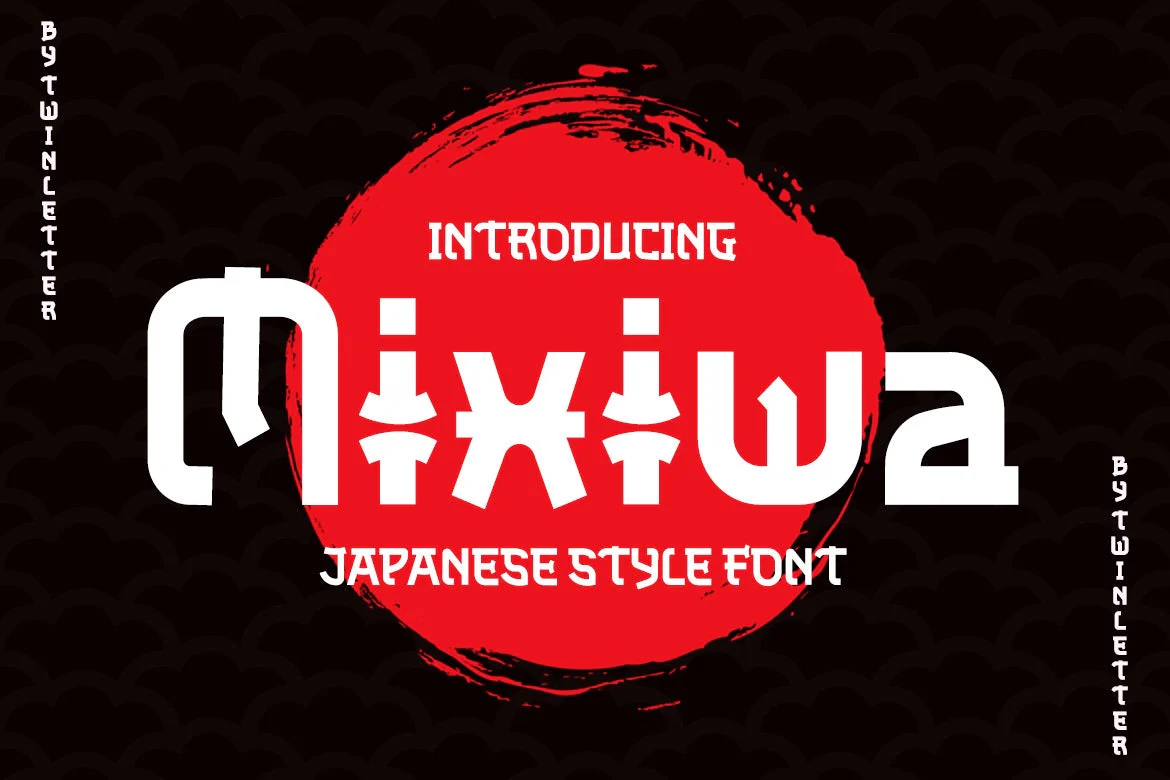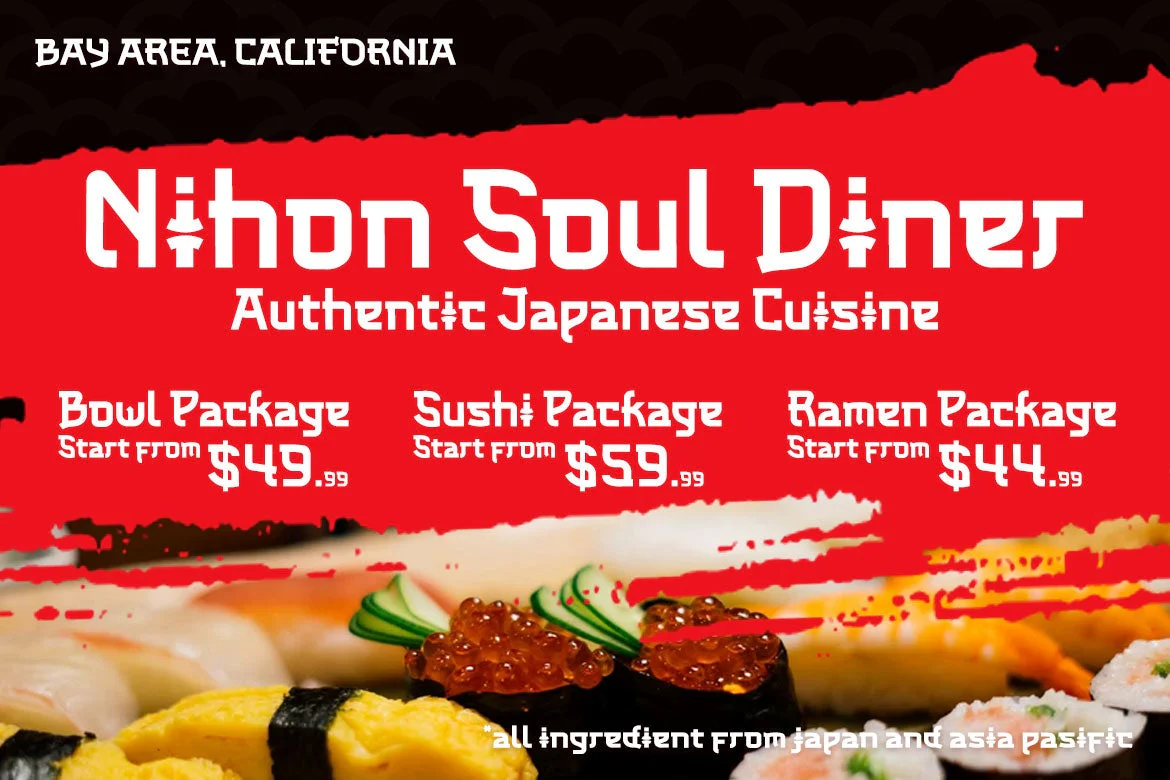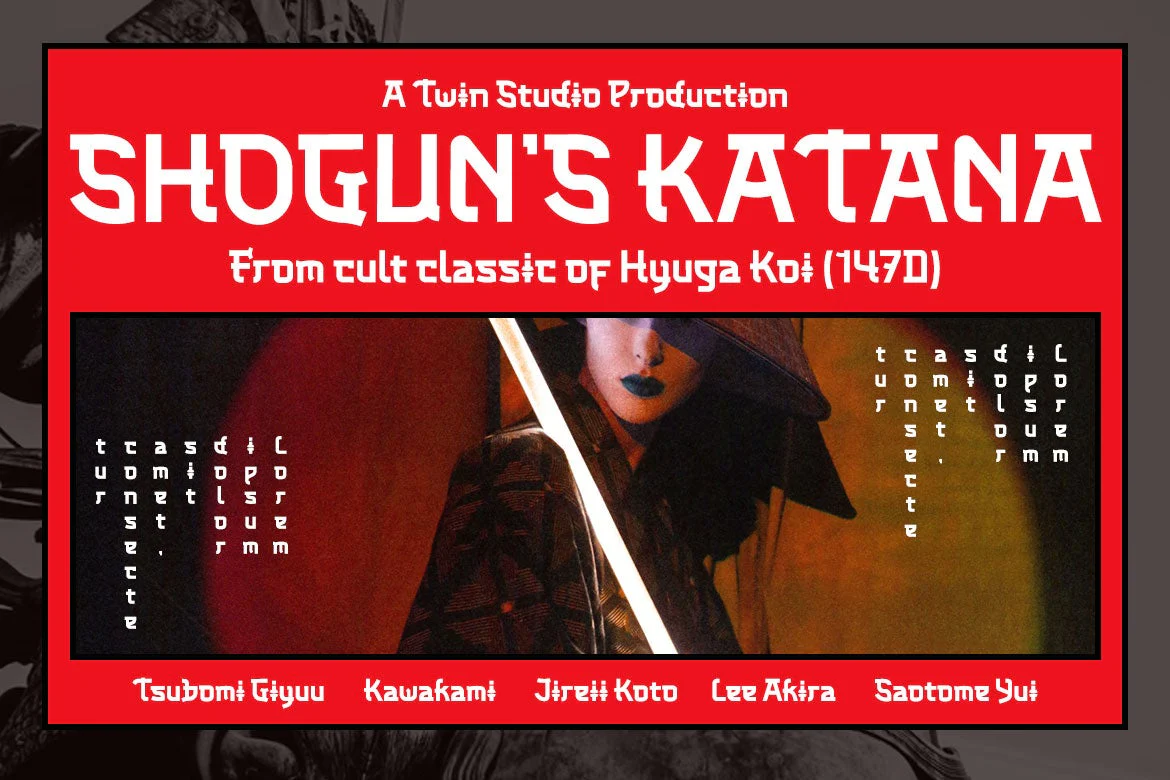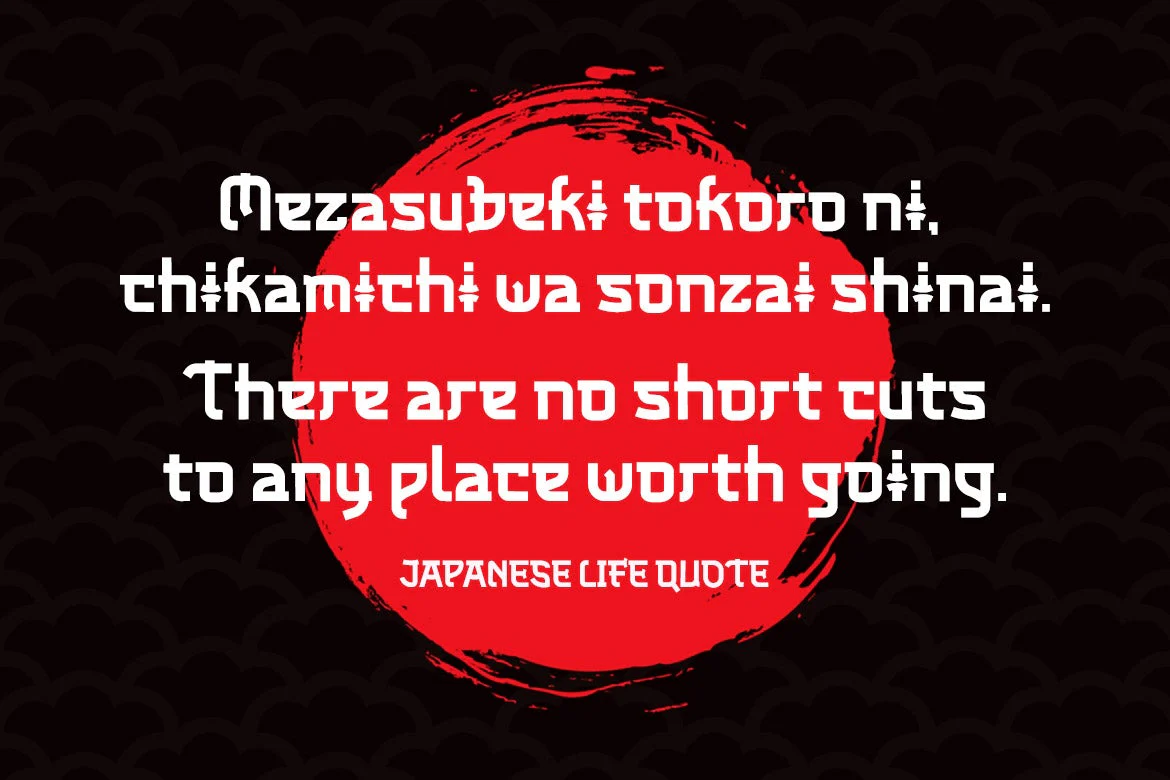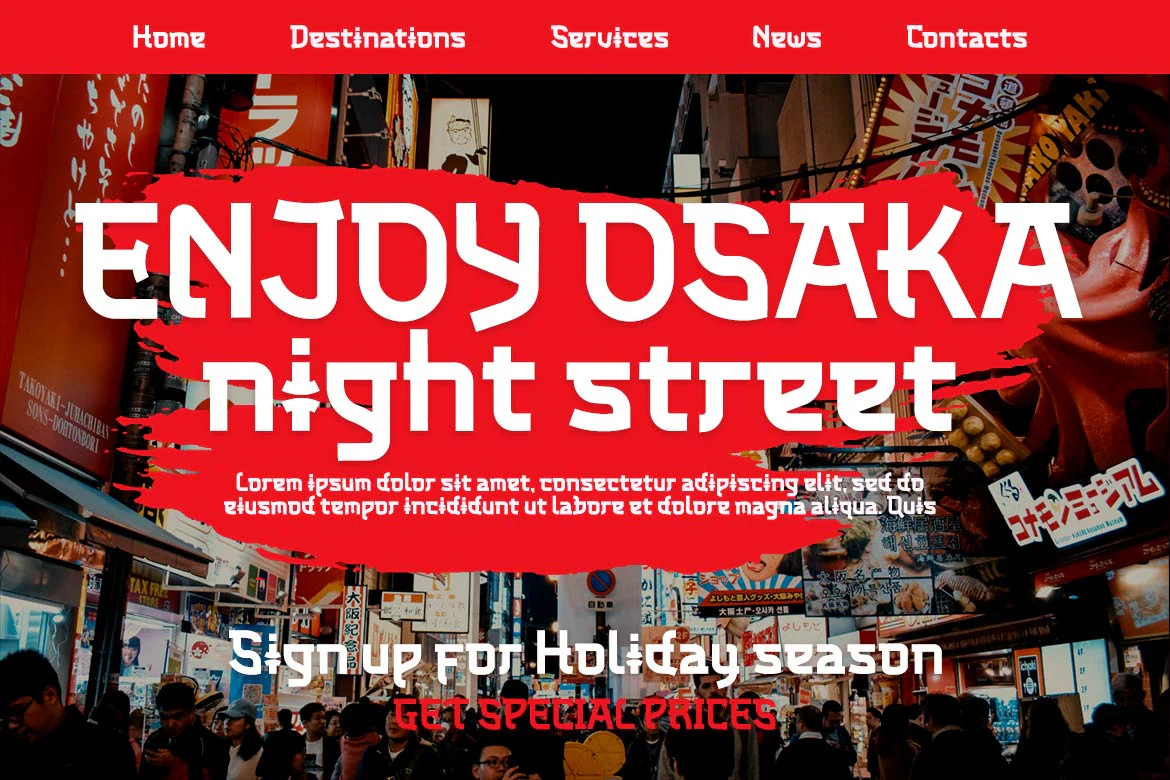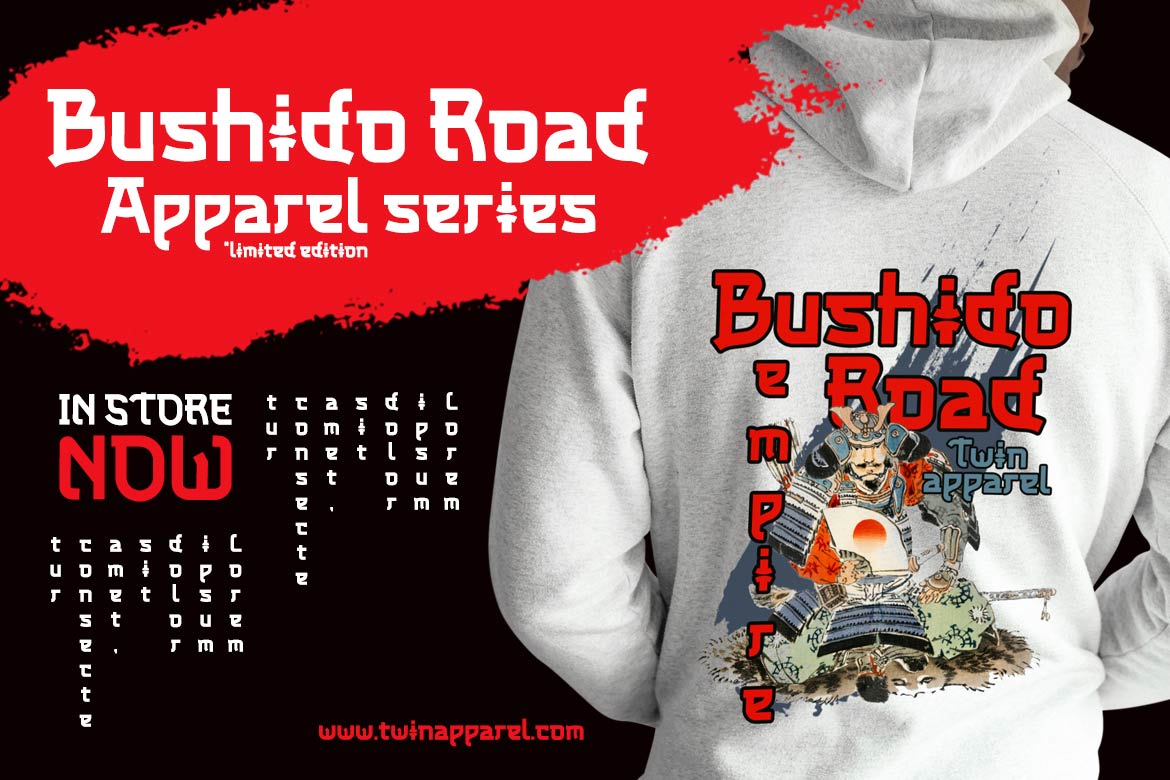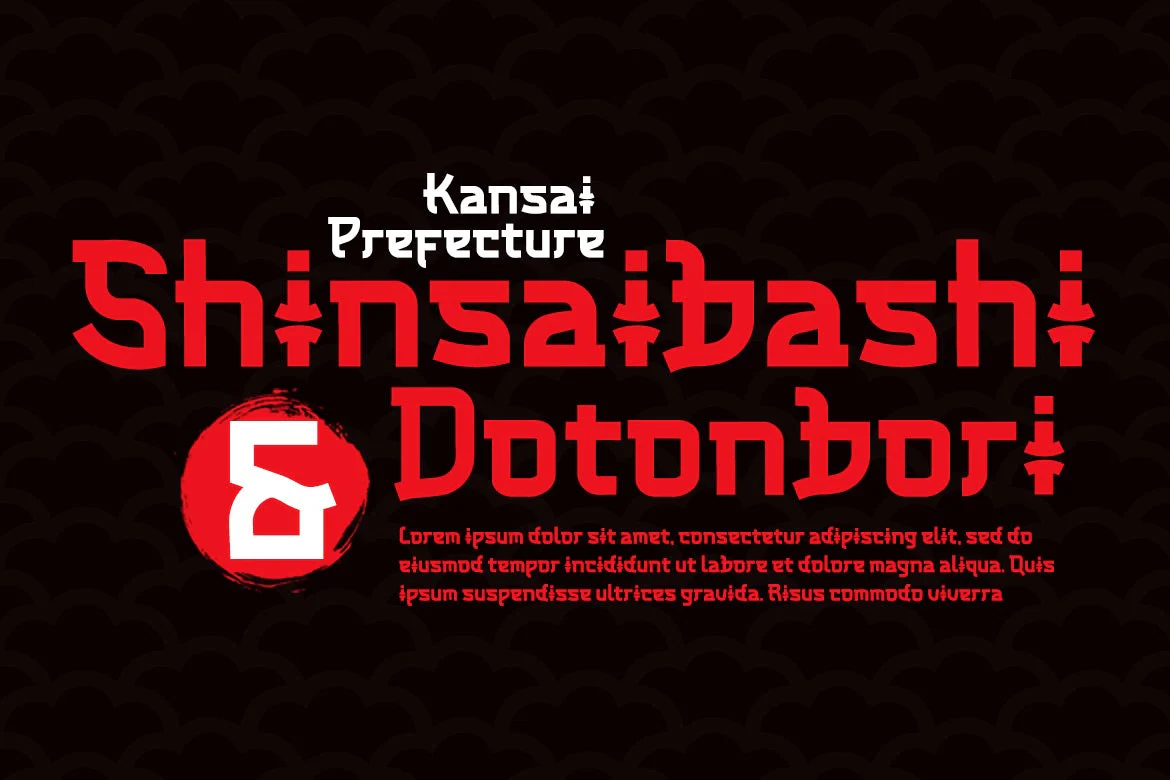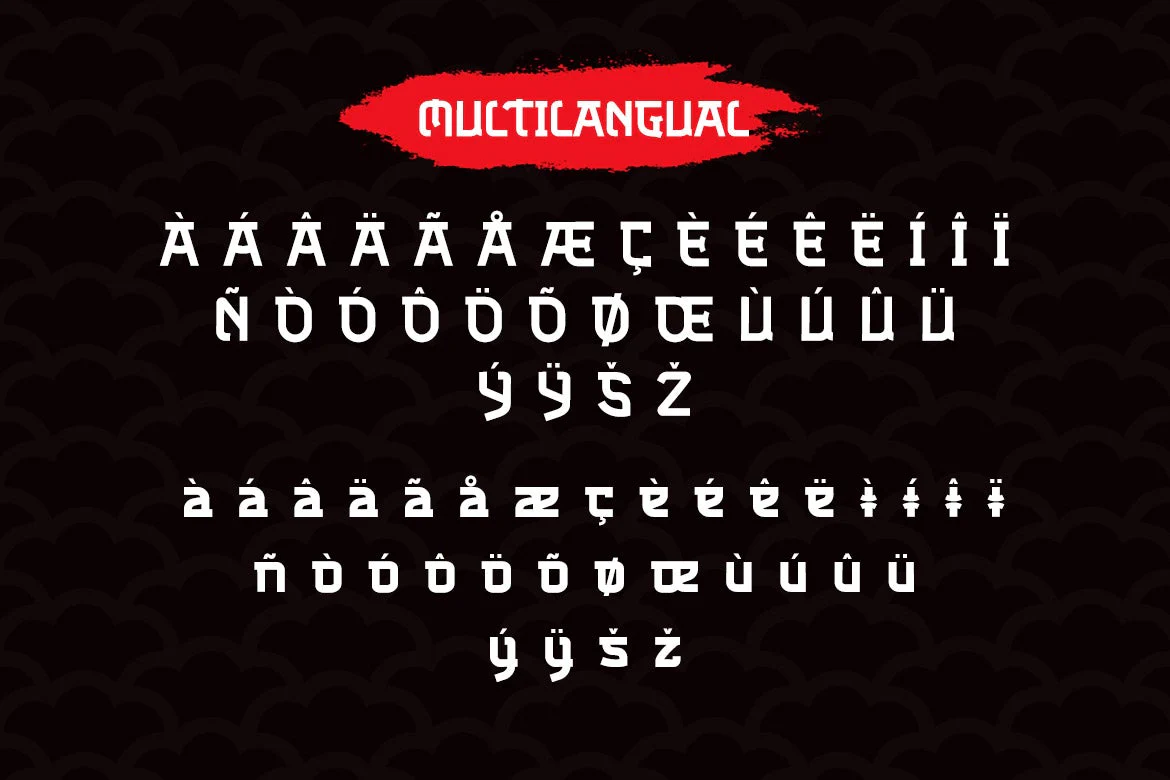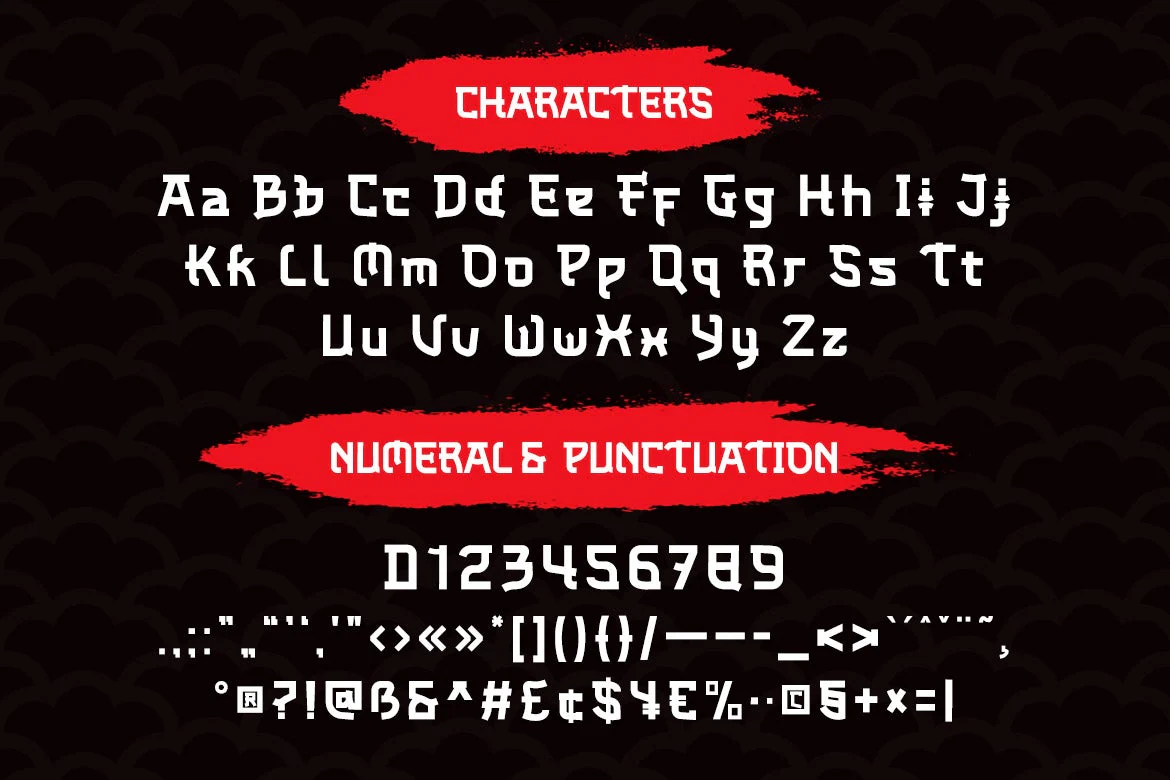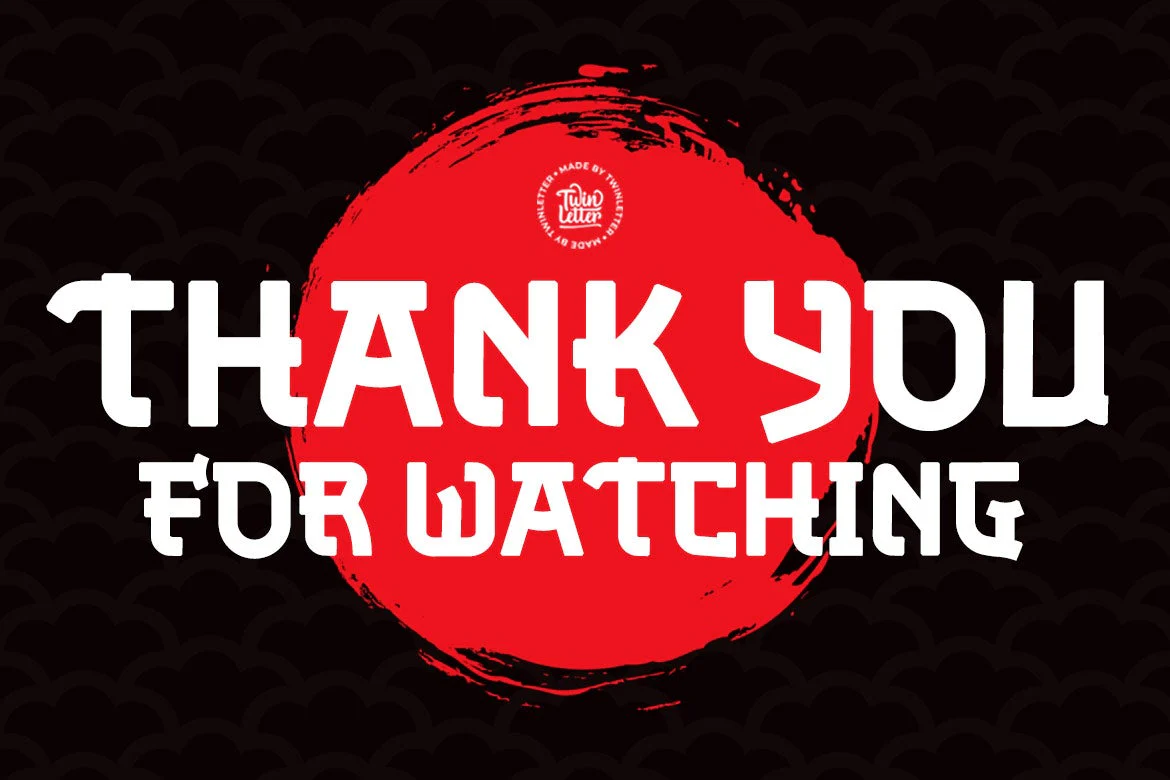
Mixiwa Faux Japanese Font
We introduce the Mixiwa typeface, which we created with great attention to give it a dashing and stylish appearance. If you choose this typeface, your entire project will be bombastic, striking, and will always grab your audienceās attention. Your entire project will be excellent if you use this font!
Logotypes, food banners, branding, brochure, posters, movie titles, book titles, quotes, and more may all benefit from this font.
Of course, using this font in your various design projects will make them excellent and outstanding; many viewers are drawn to the striking and unusual graphic display.
Start utilizing this typeface in your projects to make them stand out.
We introduce the Mixiwa typeface, which we created with great attention to give it a dashing and stylish appearance. If you choose this typeface, your entire project will be bombastic, striking, and will always grab your audienceās attention. Your entire project will be excellent if you use this font!
Logotypes, food banners, branding, brochure, posters, movie titles, book titles, quotes, and more may all benefit from this font.
Of course, using this font in your various design projects will make them excellent and outstanding; many viewers are drawn to the striking and unusual graphic display.
Start utilizing this typeface in your projects to make them stand out.